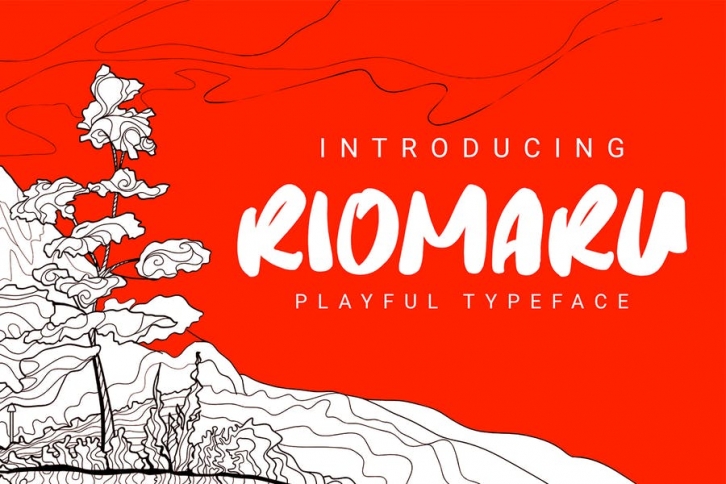
DS Riomaru - Playful Brush FONT Download
Riomaru is a cute uppercase typeface that was created to fulfill your design needs that are simply amazing. Riomaru perfect for personal branding, product design, labels, poster designs, logos, quotes, and more